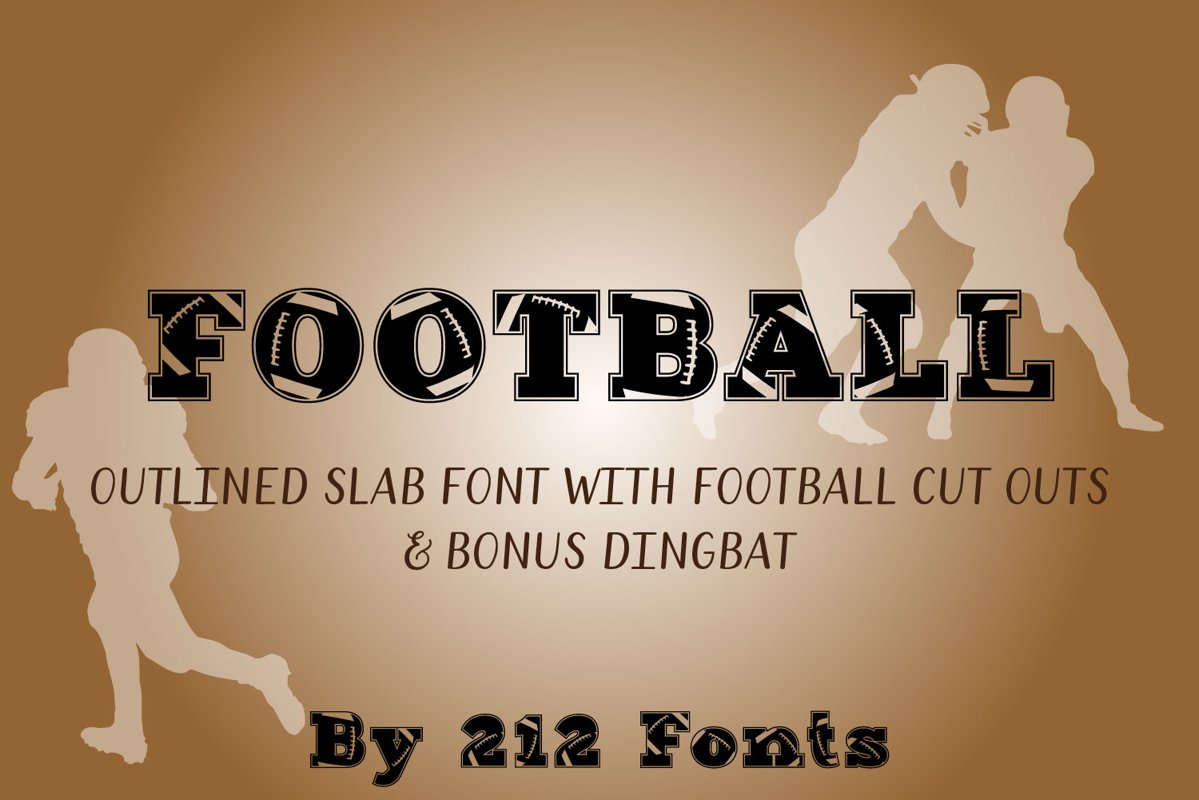
212 Football Display Font American Football and Dingbat OTF
212 Football Dings
212 Football
212 Football is bold, outlined slab lettering similar to college and sports jerseys with footballs cut out! Also included is a bonus 100+ glyph dingbat font featuring football silhouettes, equipment and text. They can be used together to create all kinds of cool designs!
This font makes great graphics, tshirt art, decals, monogram art, you name it!